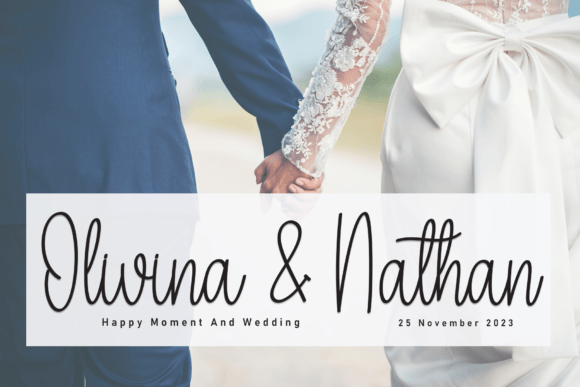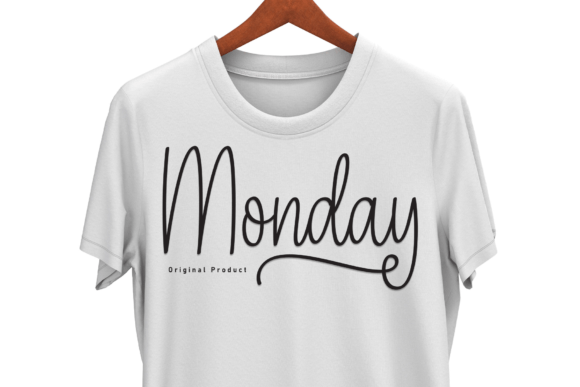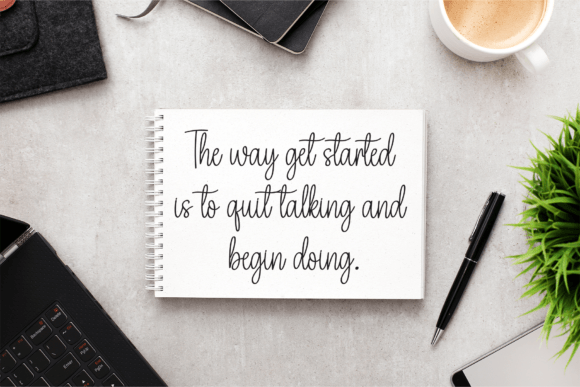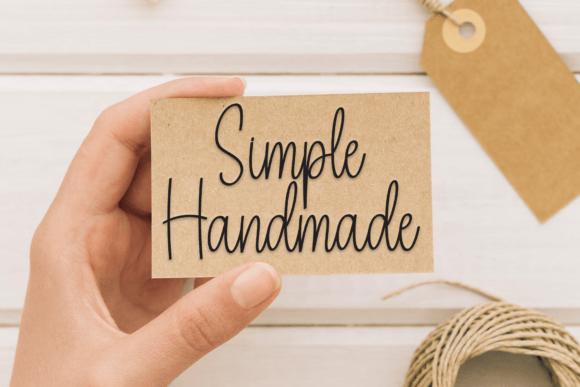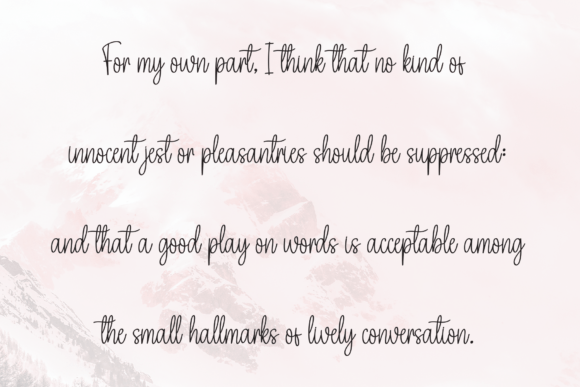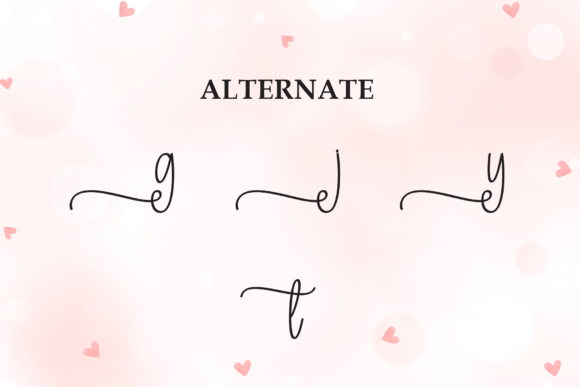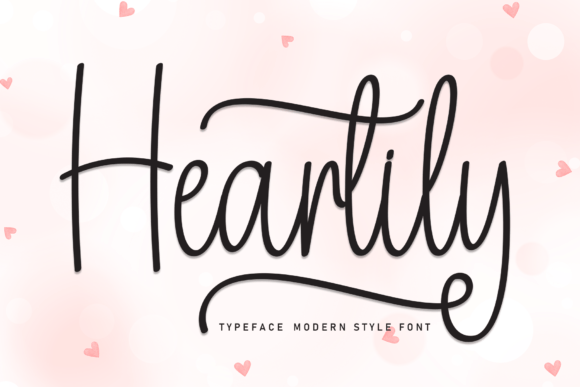
Introducing Heartily Font: The Sweet and Friendly Handwritten Font for Your Creative Projects
Are you a designer, crafter, or DIY enthusiast looking for a font that can add a touch of warmth and personality to your projects? Look no further than Heartily Font, a sweet and friendly handwritten font that’s perfect for a wide range of designs. With its natural and unique style, Heartily Font is incredibly versatile and can be used in various creative projects, from greeting cards and invitations to branding and advertising materials.
The Unique Characteristics of Heartily Font
Heartily Font is a carefully crafted handwritten font that’s designed to evoke a sense of friendliness and approachability. Its natural and unique style makes it stand out from more traditional fonts, and its sweet and charming aesthetic is sure to capture the hearts of your audience. Whether you’re creating a design for a personal project or a commercial one, Heartily Font is the perfect choice for adding a touch of personality and whimsy.
What Makes Heartily Font So Versatile?
The versatility of Heartily Font lies in its ability to adapt to a wide range of designs and styles. Its unique and natural style makes it incredibly fitting for various design projects, including:
- Greeting cards and invitations: Add a personal touch to your cards and invitations with Heartily Font’s sweet and charming aesthetic.
- Branding and advertising materials: Use Heartily Font to create a friendly and approachable brand identity that resonates with your target audience.
- Digital and print media: Heartily Font is perfect for use in digital and print media, including social media graphics, blog posts, and magazine articles.
- Crafting and DIY projects: Add a touch of personality to your crafting and DIY projects, such as handmade cards, gift tags, and scrapbooking pages.
The Benefits of Using Heartily Font
Using Heartily Font in your design projects offers a range of benefits, including:
- Unique and eye-catching designs: Heartily Font’s natural and unique style makes it stand out from more traditional fonts, ensuring that your designs grab attention and leave a lasting impression.
- Emotional connection: The sweet and friendly aesthetic of Heartily Font helps to create an emotional connection with your audience, making your designs more relatable and engaging.
- Flexibility: Heartily Font is incredibly versatile and can be used in a wide range of designs and styles, making it a valuable addition to your font collection.
Tips for Using Heartily Font Effectively
To get the most out of Heartily Font, here are some tips for using it effectively in your design projects:
- Pair it with complementary fonts: Heartily Font pairs well with a range of fonts, including sans-serif and serif fonts. Experiment with different font combinations to find the perfect pairing for your design.
- Use it in moderation: While Heartily Font is a beautiful font, it’s best used in moderation. Use it as a headline font or to add a touch of personality to your design, but avoid overusing it.
- Experiment with colors and textures: Heartily Font looks great in a range of colors and textures. Experiment with different colors and textures to add depth and interest to your design.
Heartily Font is a sweet and friendly handwritten font that’s perfect for designers, crafters, and DIY enthusiasts looking to add a touch of personality to their projects. With its natural and unique style, Heartily Font is incredibly versatile and can be used in a wide range of designs and styles. Whether you’re creating a design for a personal project or a commercial one, Heartily Font is the perfect choice for adding a touch of warmth and whimsy. So why wait? Download Heartily Font today and start creating beautiful, eye-catching designs that capture the hearts of your audience!